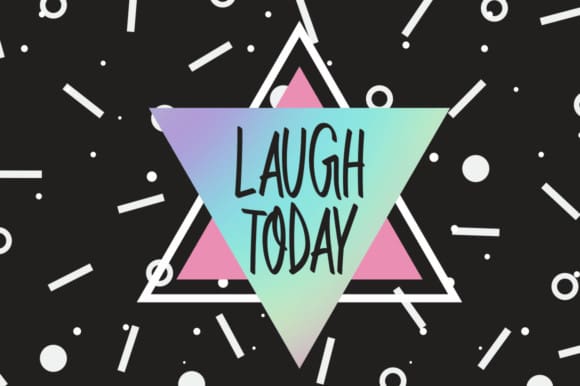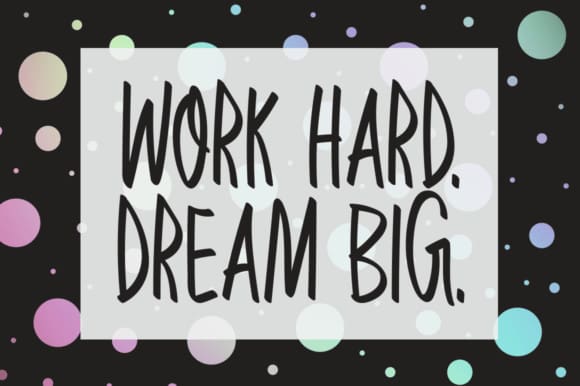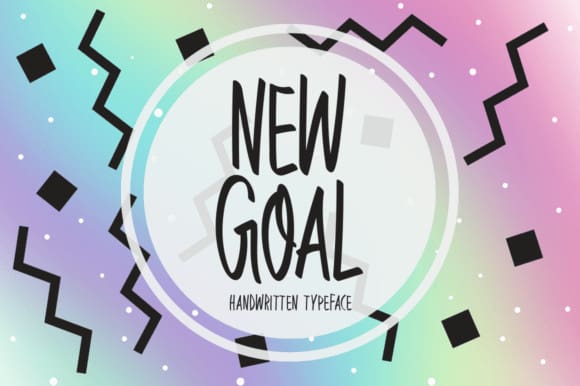
New Goal Font
New Goal Font is a incomparable handwritten font. It can easily be matched to an incredibly large set of projects, so add it to your creative ideas and notice how it makes them stand out!